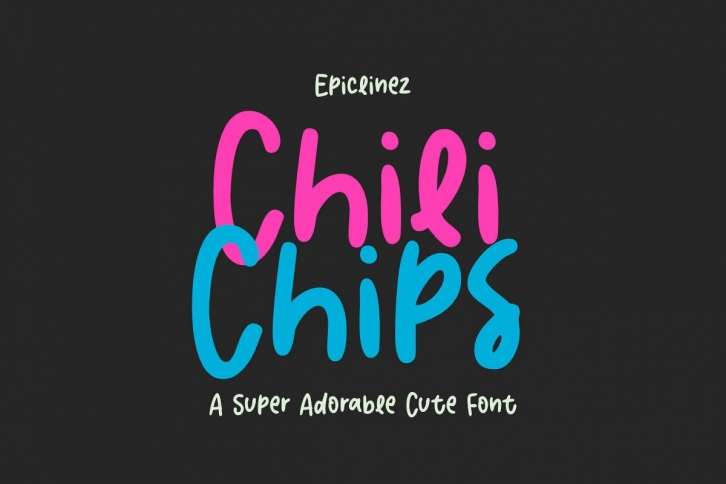
Chili Chips is a gorgeous font that was realeased on March 12, 2021. The font can be used in many style contexts and design environments. Perfect for invitations, magazines, websites, logos, and more! It was designed by Epiclinez and the file size is 18.56 MB. Thanks for checking out this font!